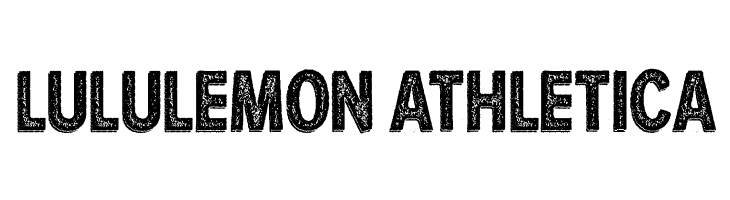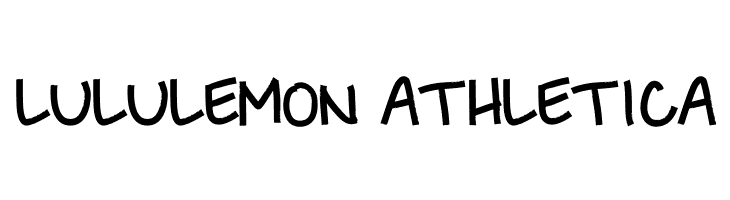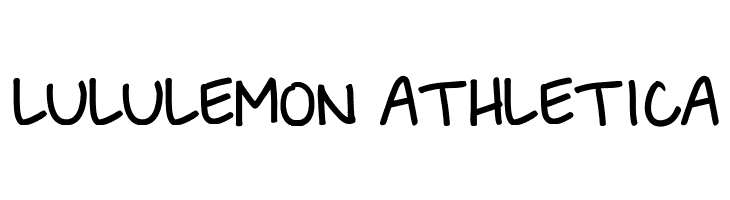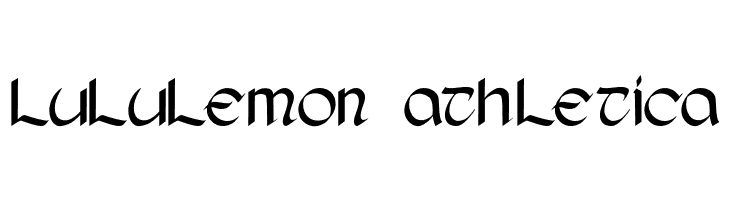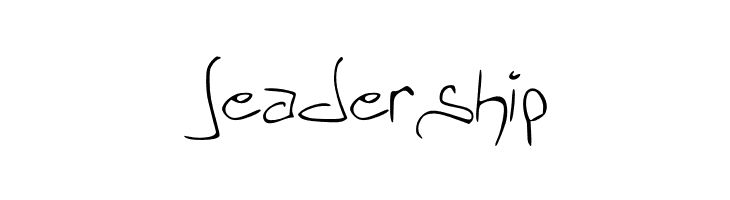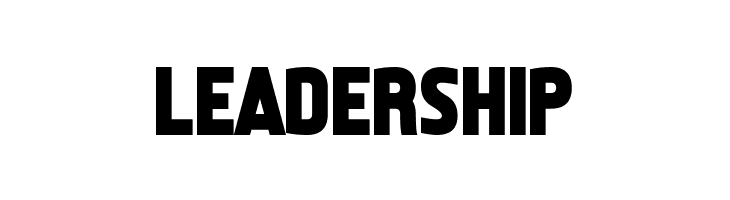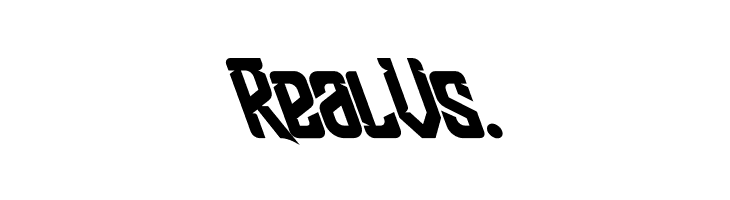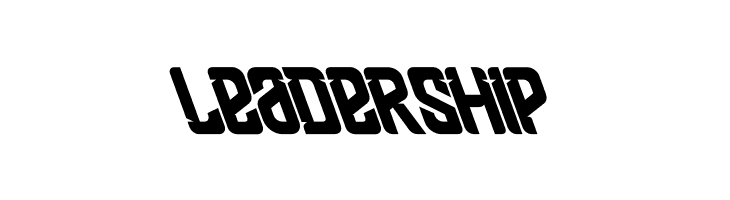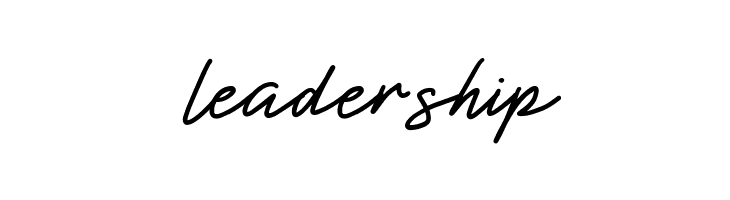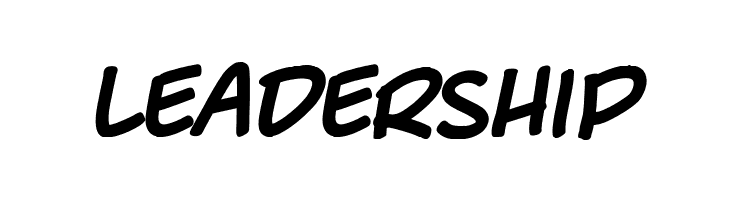
A lively and expressive handwritten font with flowing, interconnected letterforms.
A bold, modern-vintage font with high contrast and elongated letterforms.
A bold blackletter font with sharp, angular lines and a medieval aesthetic.
A bold, modern font with a vintage touch, featuring strong, uniform characters.
A playful, handwritten font with smooth, rounded edges and a casual style.
An elegant, flowing script font with a natural handwriting style.
A playful, handwritten font with smooth, rounded edges and a casual style.
A bold, distressed font with a vintage, textured appearance.
A playful, casual handwritten font with smooth, rounded edges.
A bold, playful handwritten font with thick, rounded strokes.
A bold, italicized handwritten font with a dynamic and energetic style.
A playful, italicized handwritten font with a casual and dynamic style.
A playful, bold handwritten font with a casual and dynamic style.
A bold, hand-drawn font with a brush-like, energetic style.
A bold, italicized handwritten font with a dynamic and playful style.
A bold, modern font with thick, geometric strokes.
A modern, geometric font with parallel line detailing.
An artistic and whimsical font with flowing, curved lines and ornamental qualities.
A bold, italic font with a dynamic and energetic style.
Bold, oblique font with sharp angles and thick strokes.
Portrait-based decorative font with illustrated human faces.
A modern, slanted font with bold, geometric characters.
A bold, slanted font with thick strokes and a dynamic, modern style.
A bold, slanted font with a geometric and modern design.
A cursive, handwritten-style font with elegant, flowing characters.
A bold, flowing script font with elegant curves and medium contrast.
A bold, gothic-style font with sharp, angular edges and a dramatic flair.
A graceful script font with fluid, cursive strokes and artistic flair.
A lively and elegant script font with flowing, cursive letterforms.